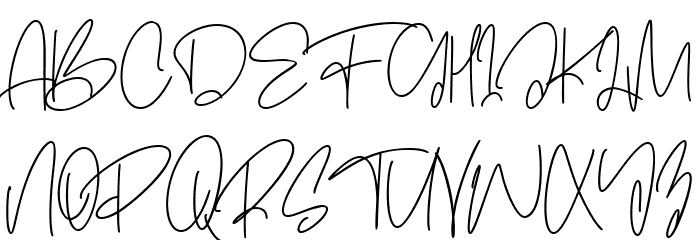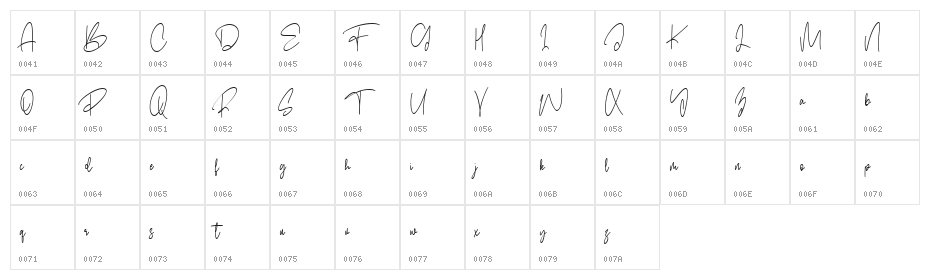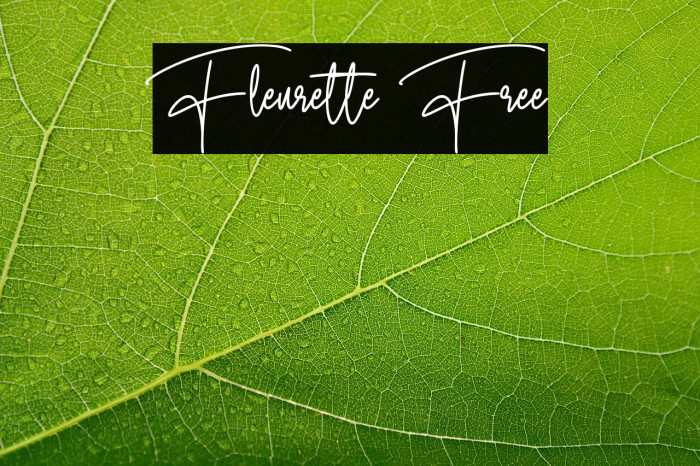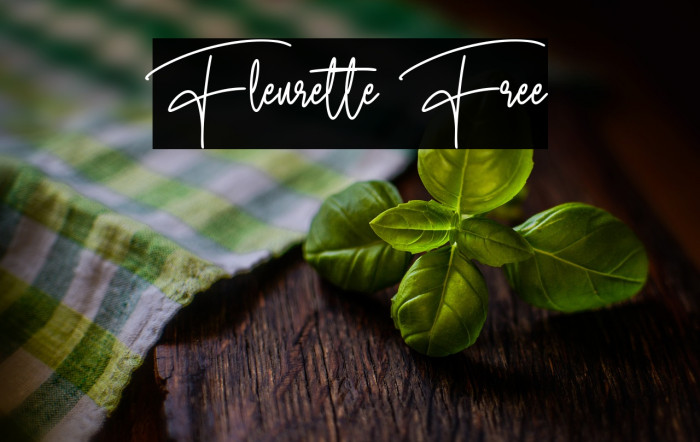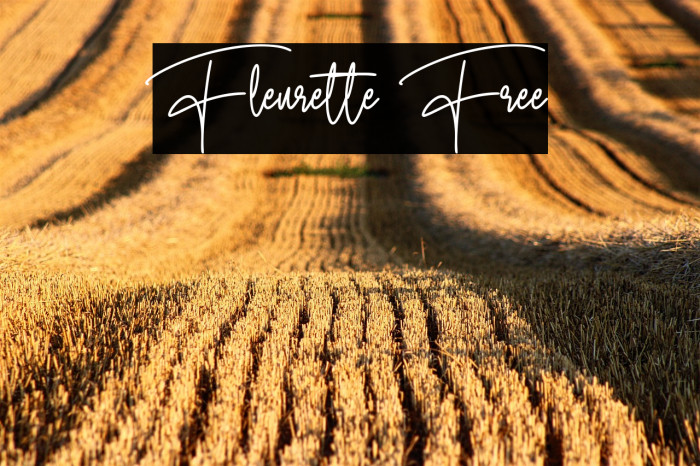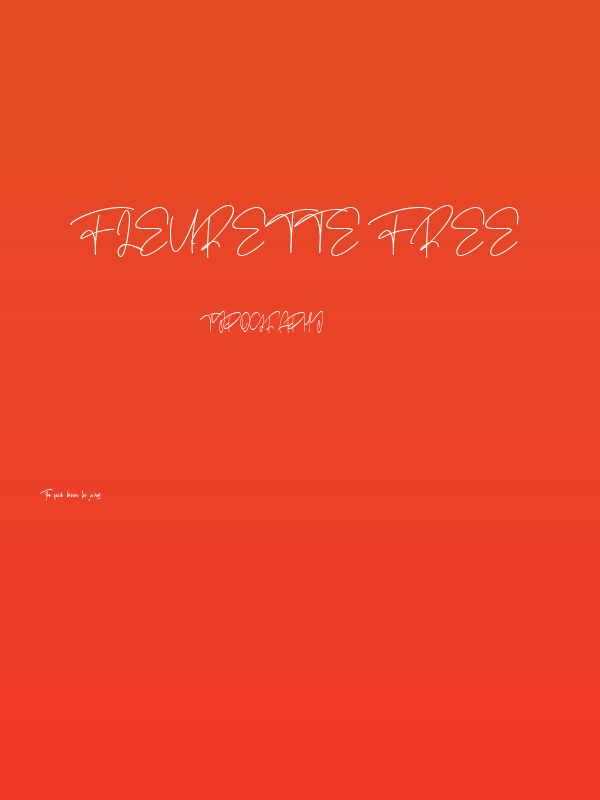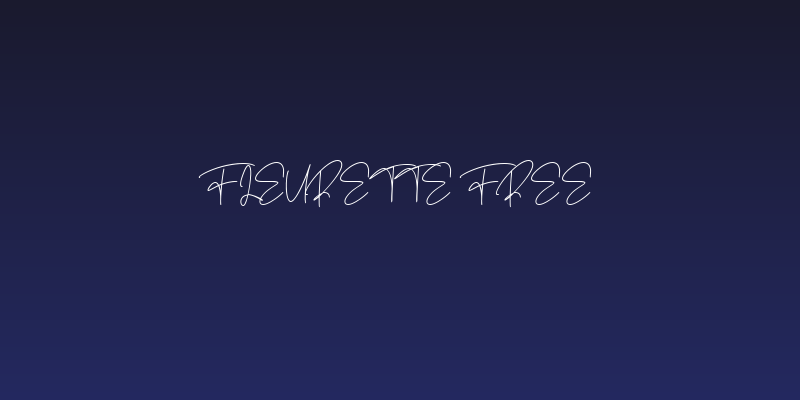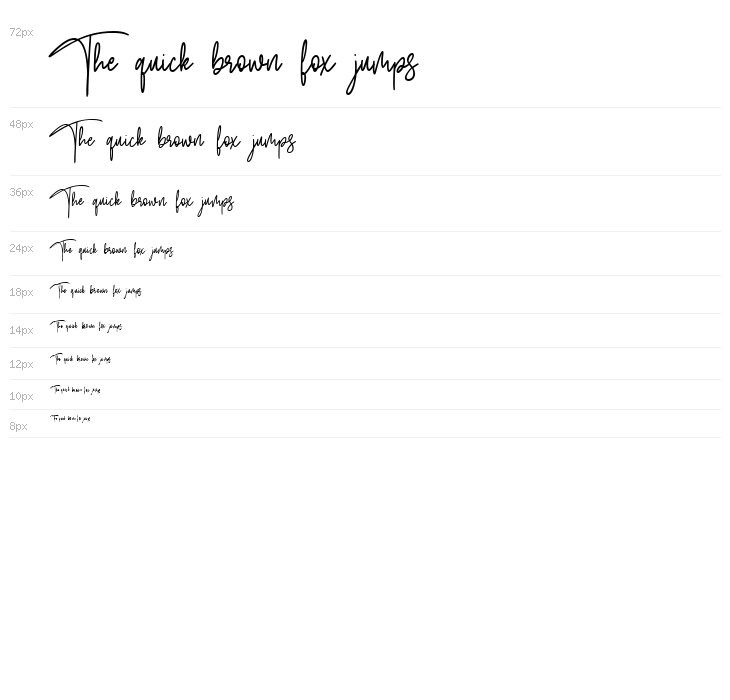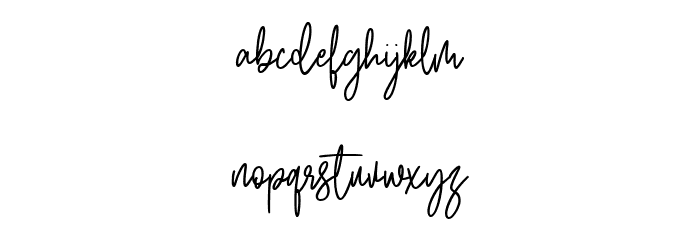
Fleurette Free Font
Fleurette Free Description
This font features an elegant, flowing script style that mimics the natural, fluid motion of handwriting. The characters are connected with smooth, sweeping lines, giving it a sophisticated and artistic appearance. The uppercase letters are bold and prominent, while the lowercase letters are more delicate, maintaining a consistent flow throughout. The font's thin strokes and high contrast between thick and thin lines add to its refined look. It is ideal for projects that require a personal touch, such as invitations, greeting cards, or branding materials. The overall style is modern yet timeless, making it versatile for various design needs.